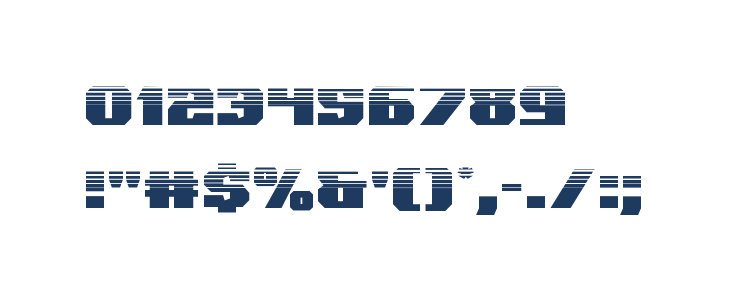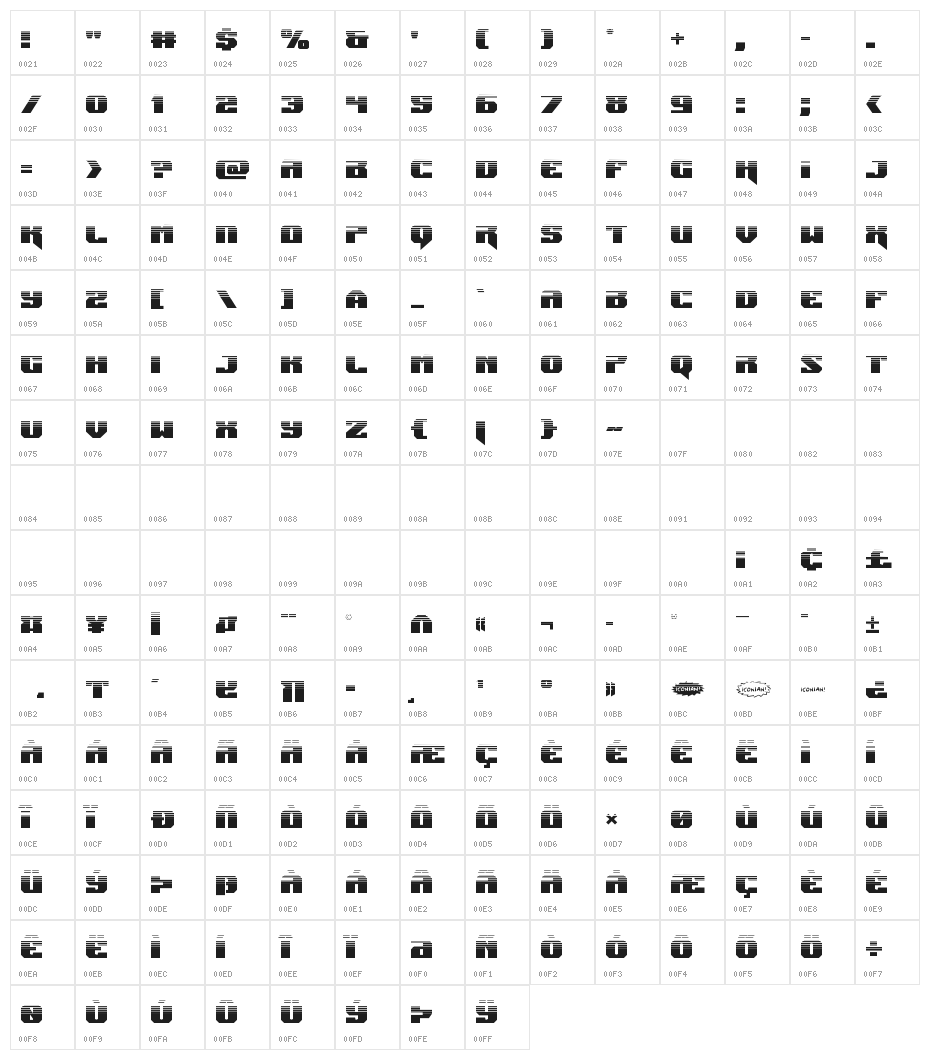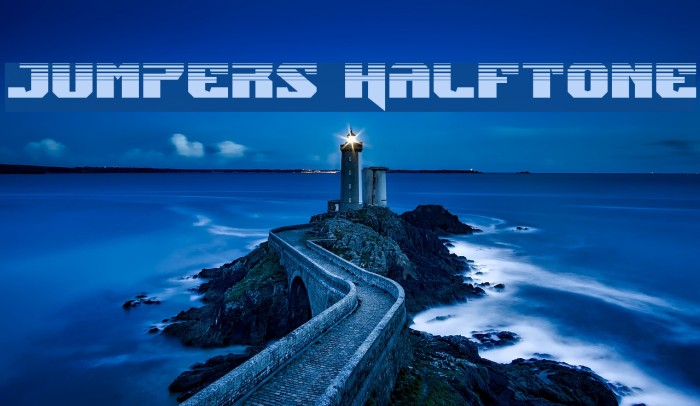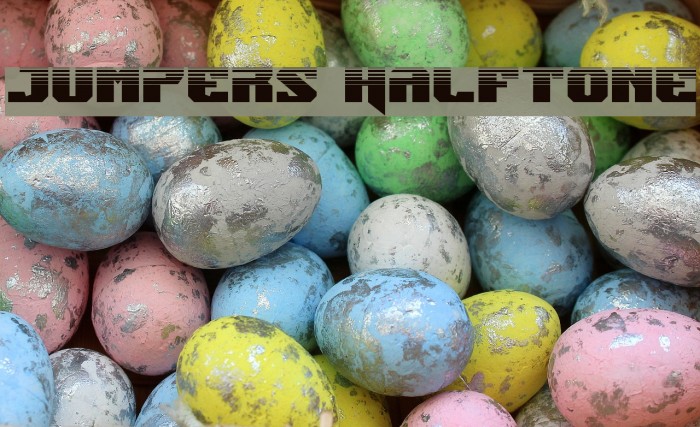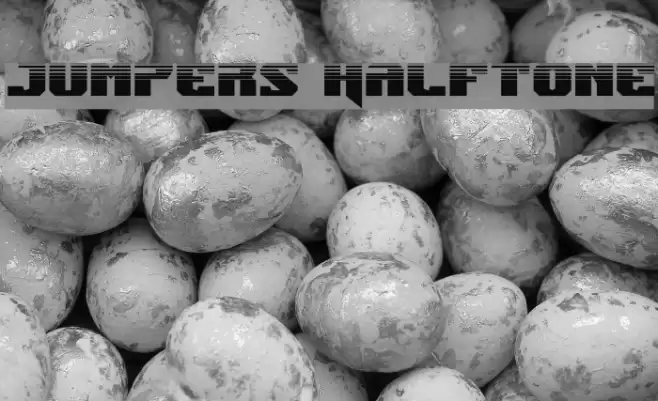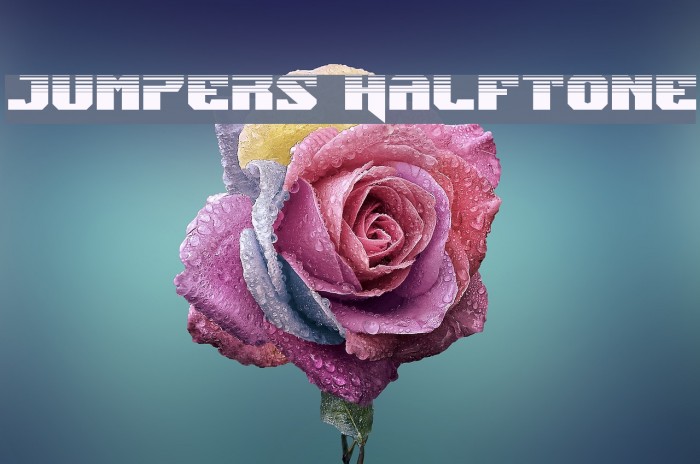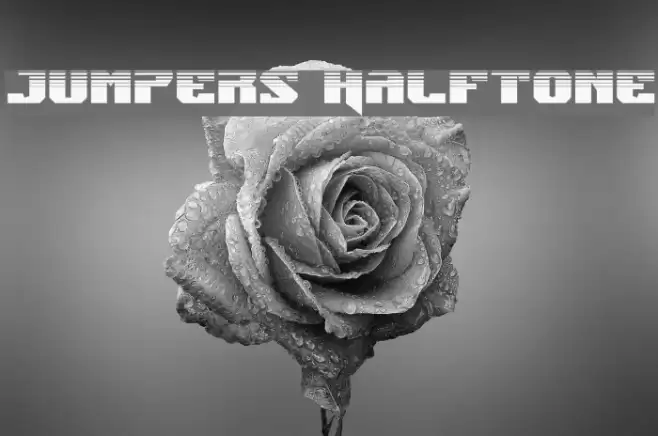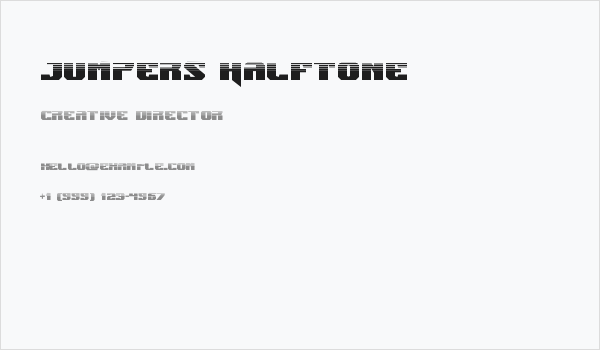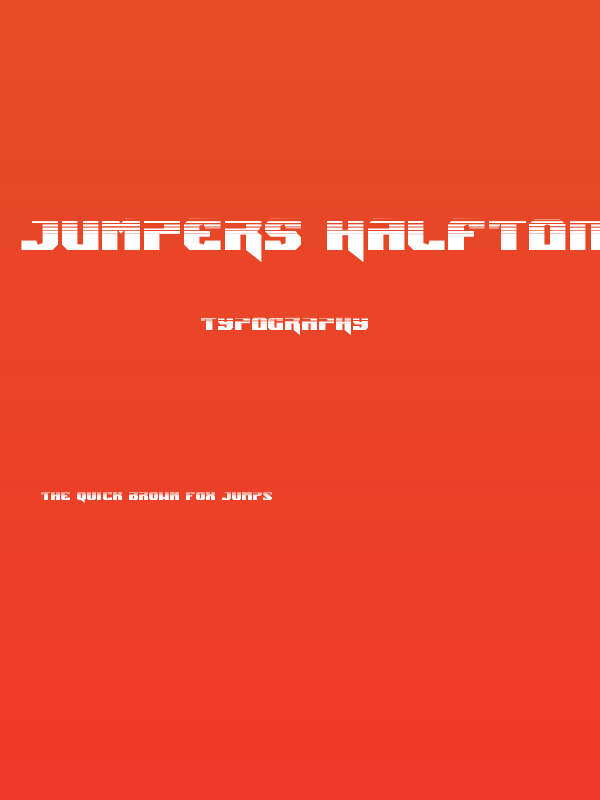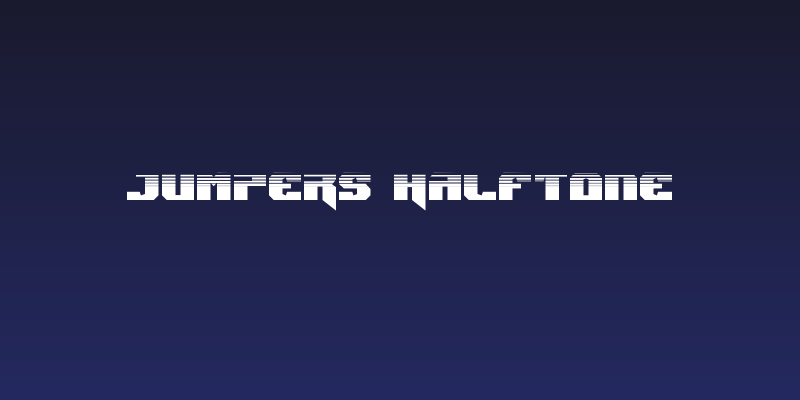
Jumpers Halftone Font
Jumpers Halftone Description
This font features a bold, geometric design with a distinctive halftone pattern that gives it a modern and edgy appearance. The uppercase letters are characterized by strong, angular lines and a unique striped effect that adds depth and dimension. The numerals and special characters maintain this consistent style, making it ideal for attention-grabbing designs. The overall look is both futuristic and retro, reminiscent of digital or arcade aesthetics. Its bold presence makes it suitable for impactful headlines and logos.
| Proposed Projects | Ideal for use in digital art, video game titles, posters, and branding that requires a modern, tech-inspired look. |